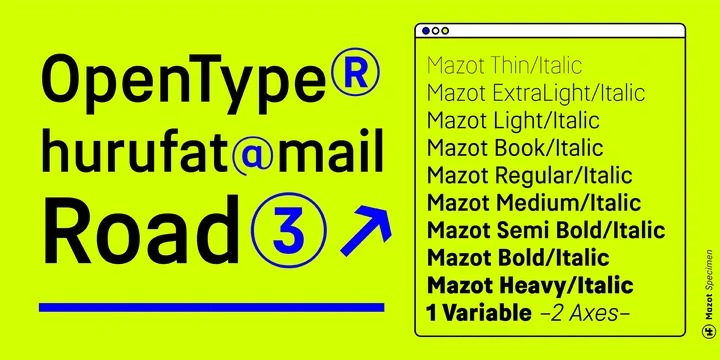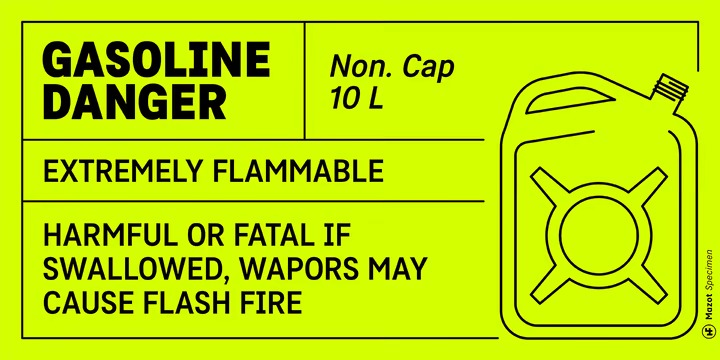
Mazot Font
Mazot Sans Serif Font
This font is a hard-working 18-font modern geometric sans. Low contrast structure and terminals being flush with the body, gives it a raw effect. Perfect for Branding, Poster and Packaging designs.
It has rich OpenType features. It consists of a total of 18 styles, from Light to Heavy with 9 weights and matching italics. It is available in 2-axes variable version.